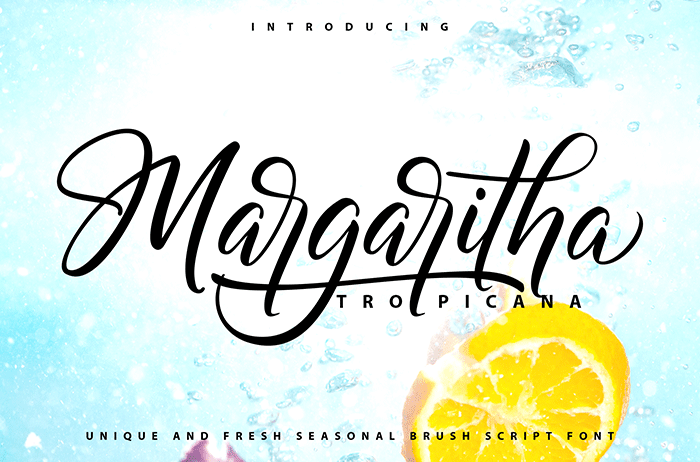
Margaritha Tropicana Script Font radiates elegance and authenticity in each of its boldly drawn letters. This font is suitable for branding, covers, posters, and more. Thanks to Vunira for sharing this font. Take a look at this portfolio for more of his stunning fonts.